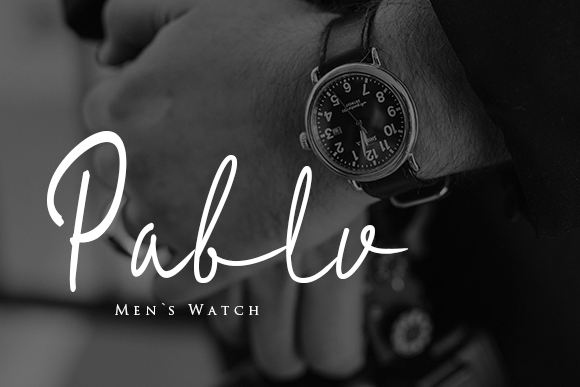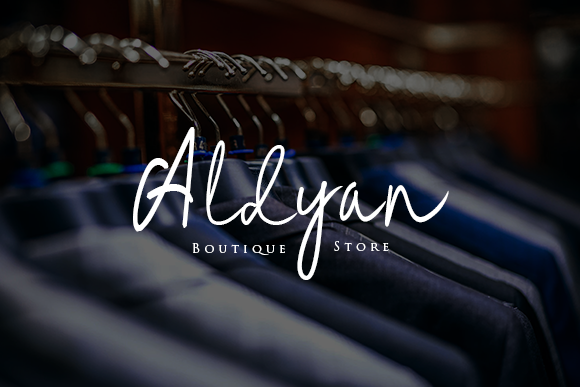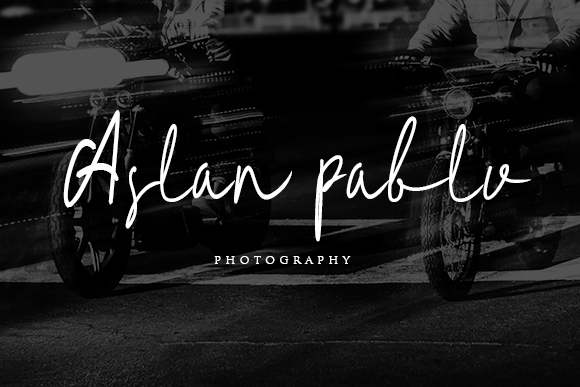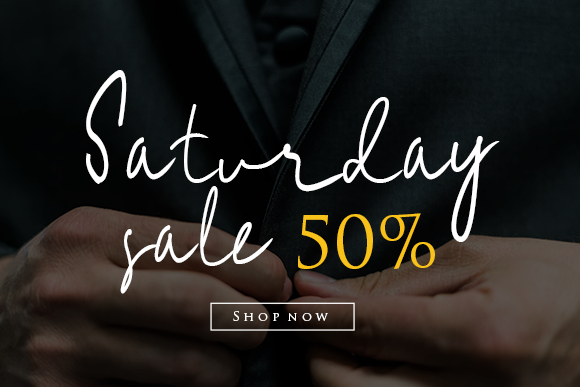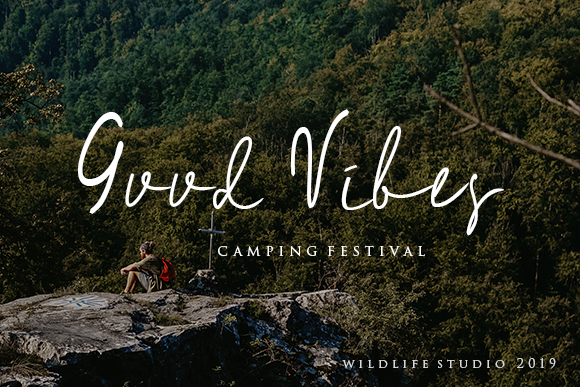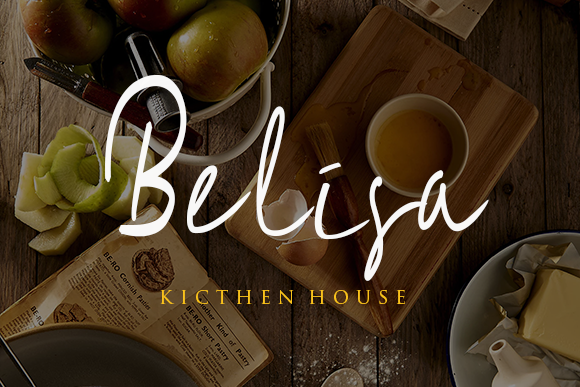
Introducing Hamisd Font: Elevate Your Designs with Elegance and Sophistication
In the world of digital design, fonts play a crucial role in conveying the tone and aesthetic of a project. For those seeking a touch of elegance and sophistication, the Hamisd Font is an exceptional choice. This modern calligraphy font is designed to bring a sense of luxury and refinement to various design projects, making it a versatile tool for designers and crafters alike.
The Essence of Hamisd Font
The Hamisd Signature is a classy, elegant, and super stylish modern calligraphy font that embodies natural handwritten movements. Its fluid strokes and graceful curves give it a unique charm that can instantly elevate the visual appeal of any design. Whether you’re working on logos, branding, invitations, stationery, wedding designs, social media posts, or any other project, Hamisd Font is perfect for adding a touch of sophistication.
Key Features of Hamisd Font
- Elegant and Refined: Hamisd Font boasts a high level of elegance, making it suitable for designs that require a sophisticated look.
- Modern Calligraphy: With its roots in modern calligraphy, this font offers a fresh and contemporary feel that can set your designs apart.
- Versatile: From logos and branding to wedding designs and social media posts, Hamisd Font’s versatility knows no bounds.
- Natural Handwritten Movements: The font’s design mimics natural handwriting, giving it a personal and unique touch.
Applications of Hamisd Font
The Hamisd Font’s wide range of applications makes it an invaluable asset for designers. Here are some of the areas where it truly shines:
- Logos & Branding: Create memorable and elegant logos that stand out. Hamisd Font can help establish a brand’s identity with a sophisticated and modern appeal.
- Invitations: Whether it’s a wedding invitation, a birthday party invite, or any other special occasion, Hamisd Font adds a touch of class and elegance.
- Stationery: Elevate your stationery designs, including business cards, letterheads, and notebooks, with a font that exudes professionalism and style.
- Wedding Designs: From wedding invitations to ceremony programs and thank-you cards, Hamisd Font is perfect for creating beautiful and cohesive wedding design elements.
- Social Media Posts: Stand out on social media with stylish and engaging posts that utilize the elegant and modern feel of Hamisd Font.
Why Choose Hamisd Font?
In a sea of fonts, Hamisd Font stands out for several reasons:
- Unique Aesthetic: Its modern calligraphy style and natural handwritten movements offer a unique aesthetic that’s hard to find elsewhere.
- High Readability: Despite its elegant and cursive nature, Hamisd Font maintains high readability, making it suitable for both headings and body text.
- Time-Saving: With Hamisd Font, you can achieve professional-looking results quickly, saving time and effort in the design process.
- Support for Various Projects: Its versatility means you can use it across a wide range of projects, making it a valuable addition to your font library.
The Hamisd Font is a powerful tool for designers and crafters looking to infuse their projects with elegance, sophistication, and a modern touch. Its versatility, unique aesthetic, and readability make it an excellent choice for a wide array of applications. Whether you’re aiming to create stunning logos, beautiful wedding designs, or engaging social media posts, Hamisd Font is sure to elevate your designs to new heights. Embrace the elegance and make your designs stand out with the Hamisd Font.